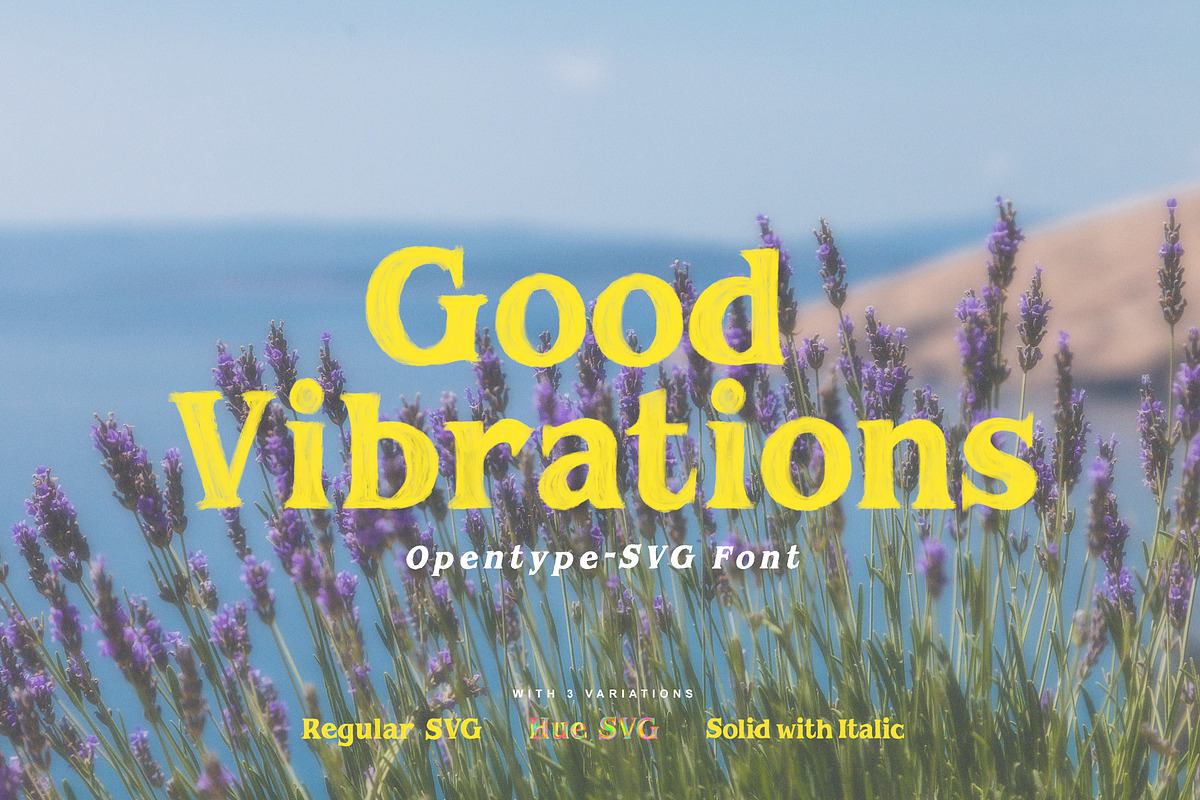
Good Vibrations | Opentype SVG Font Free Download is a vibrant and artistic typeface designed to capture the energy and flow of hand-painted brush strokes. The Opentype SVG format allows for rich, high-quality textures that maintain the authenticity of the hand-lettered design. This font is perfect for creative projects like posters, logos, packaging, social media graphics, and any design that needs a bold, expressive touch.
With its lively brush strokes and artistic flair, Good Vibrations brings personality and visual interest to your designs, making it ideal for projects related to music, art, lifestyle, or anything that aims to convey a fun, energetic vibe.